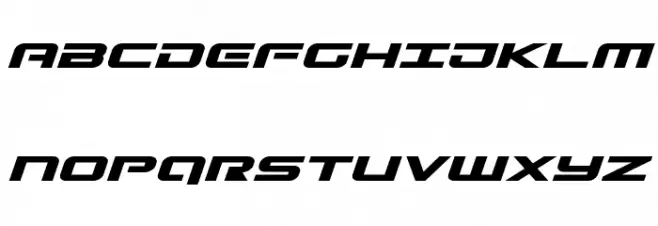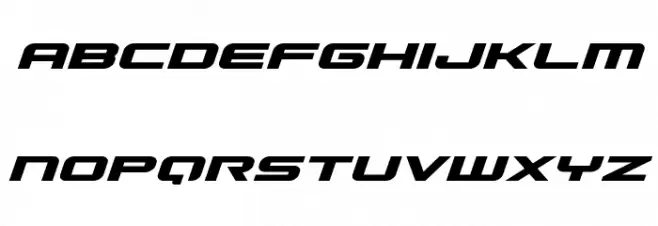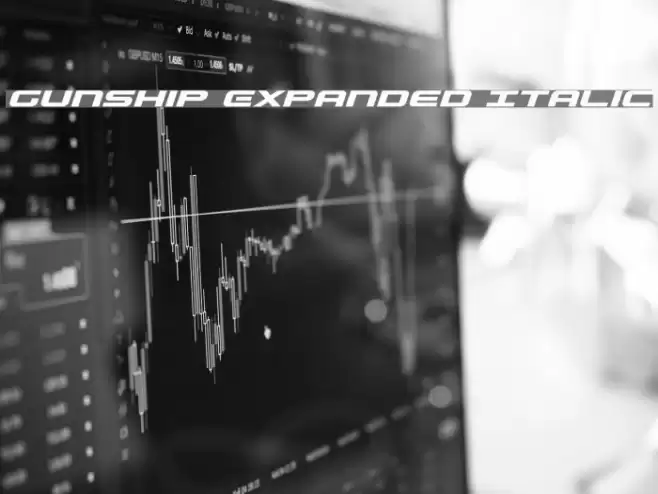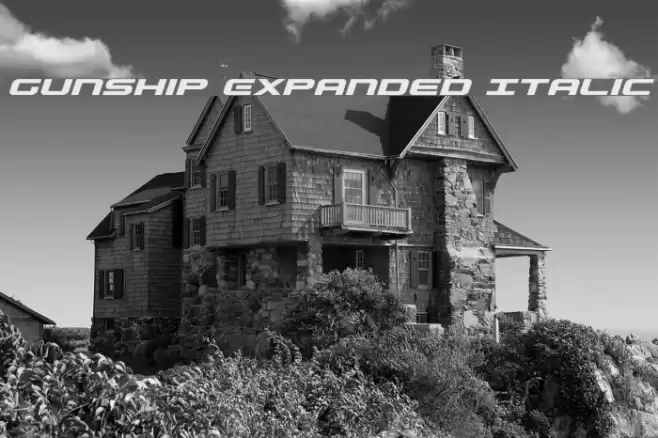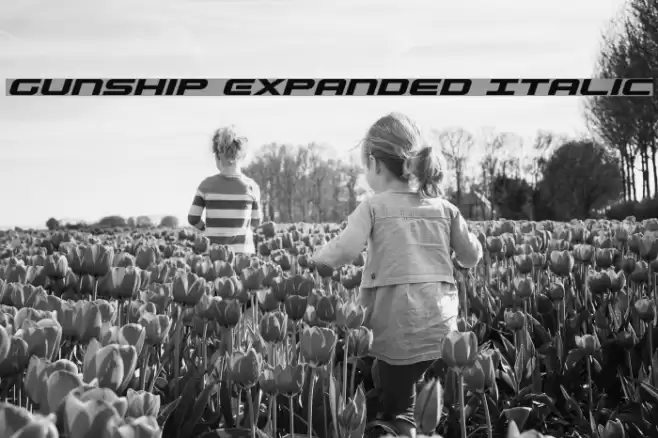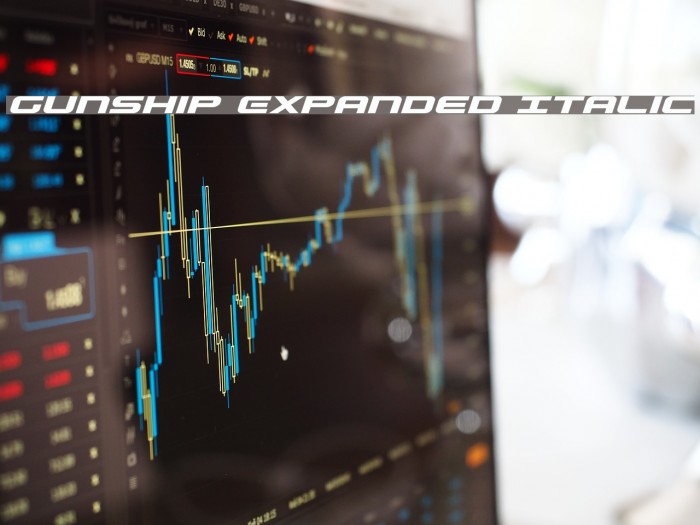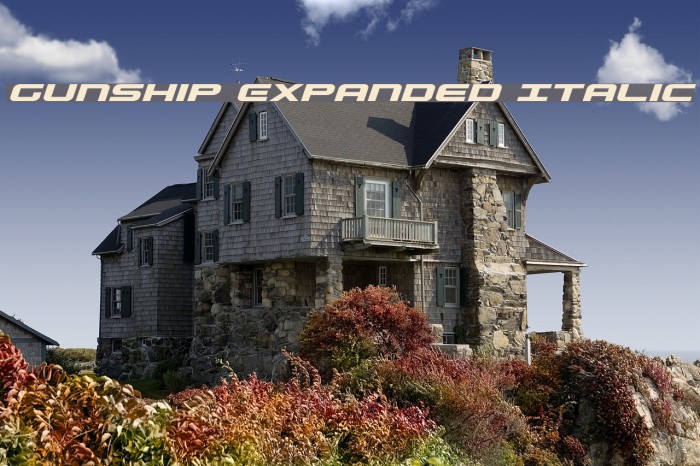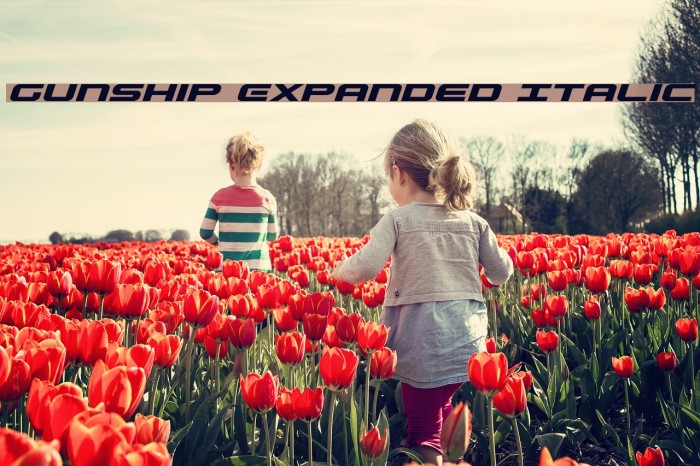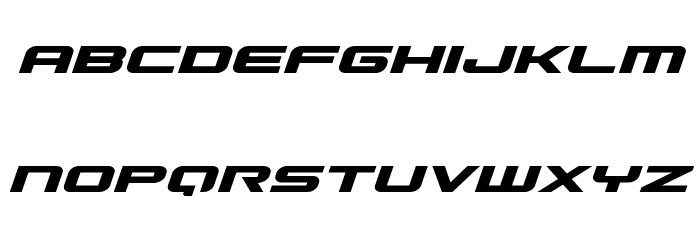
Gunship Expanded Italic
This font features a bold, futuristic design with an italic slant, giving it a dynamic and forward-moving appearance. The characters are expanded, providing a wide stance that enhances readability while maintaining a sleek and modern aesthetic. The angular cuts and geometric shapes contribute to its high-tech feel, making it ideal for projects that require a sense of speed and innovation. The uniform stroke width ensures consistency across all characters, while the expanded width adds a distinctive presence.
A bold, expanded, and italic futuristic font with a dynamic and modern style.
- Proposed Projects: Ideal for technology branding, video game titles, sci-fi movie posters, and sports team logos.
- Width: Expanded